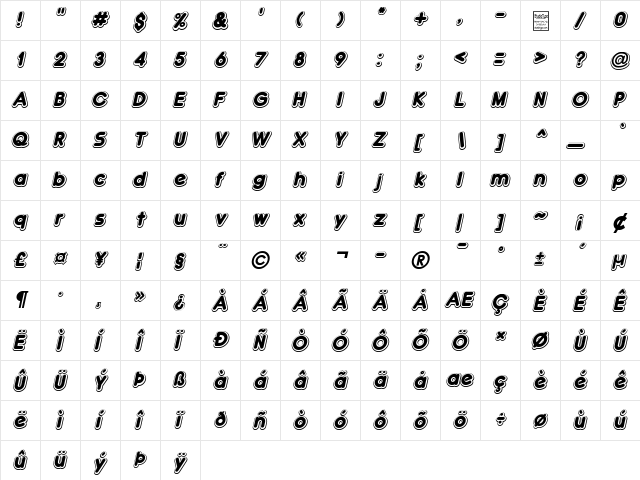
Double債bble Shadow Italic
Design Context for Double債bble Shadow Typeface
Double債bble Shadow brings ornamental detail and strong personality to headlines and identities, where visual impact matters more than quiet functionality. The dynamic lean of this cut emphasises speed and emphasis in any layout.
Font Pairing: Pair with a clean neutral sans-serif for body copy to let Double債bble Shadow's character lead without overwhelming the composition.
Pro Tip: Treat Double債bble Shadow as the centrepiece of your typographic hierarchy. One strong heading set in a decorative face can carry an entire layout.